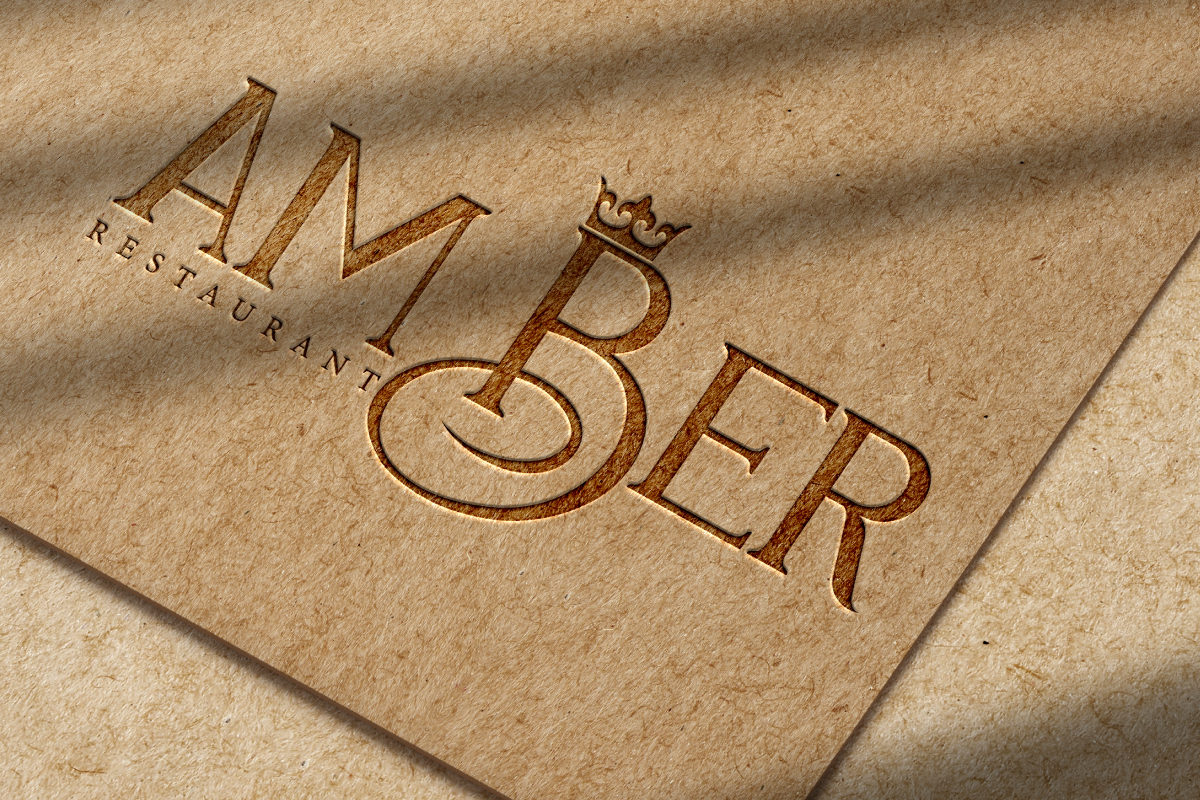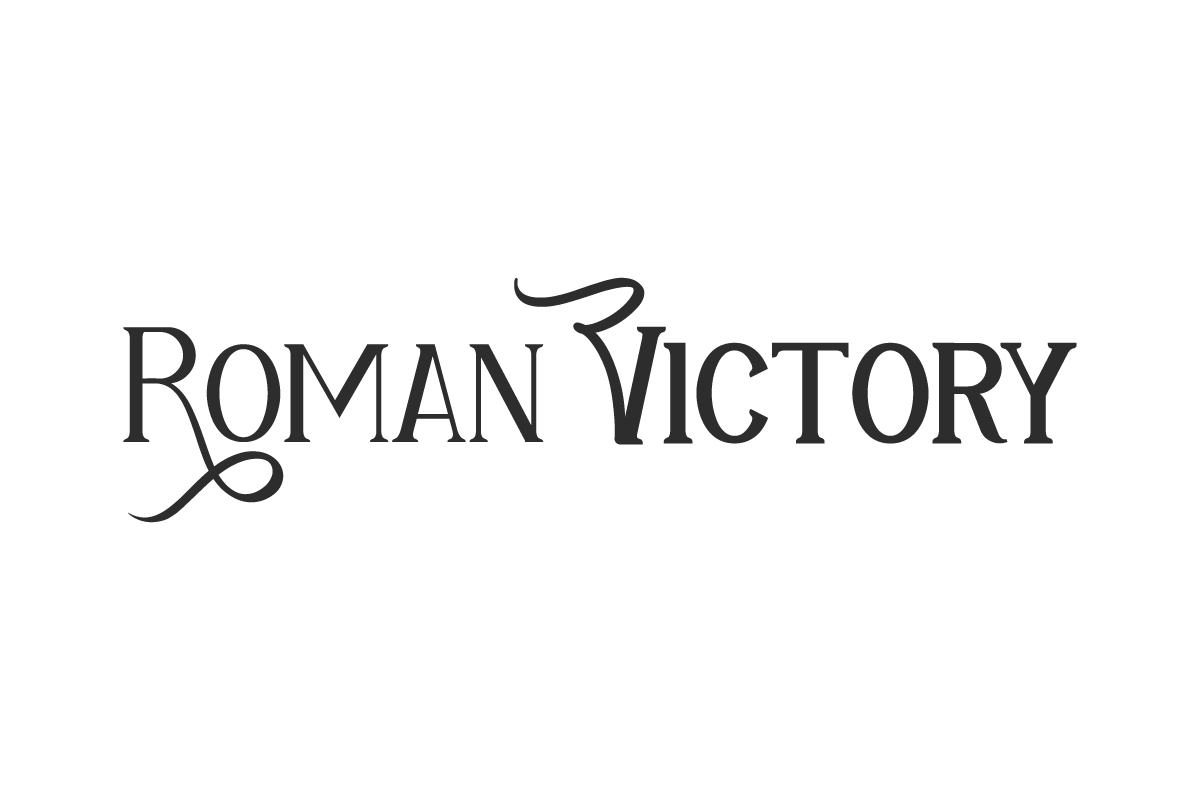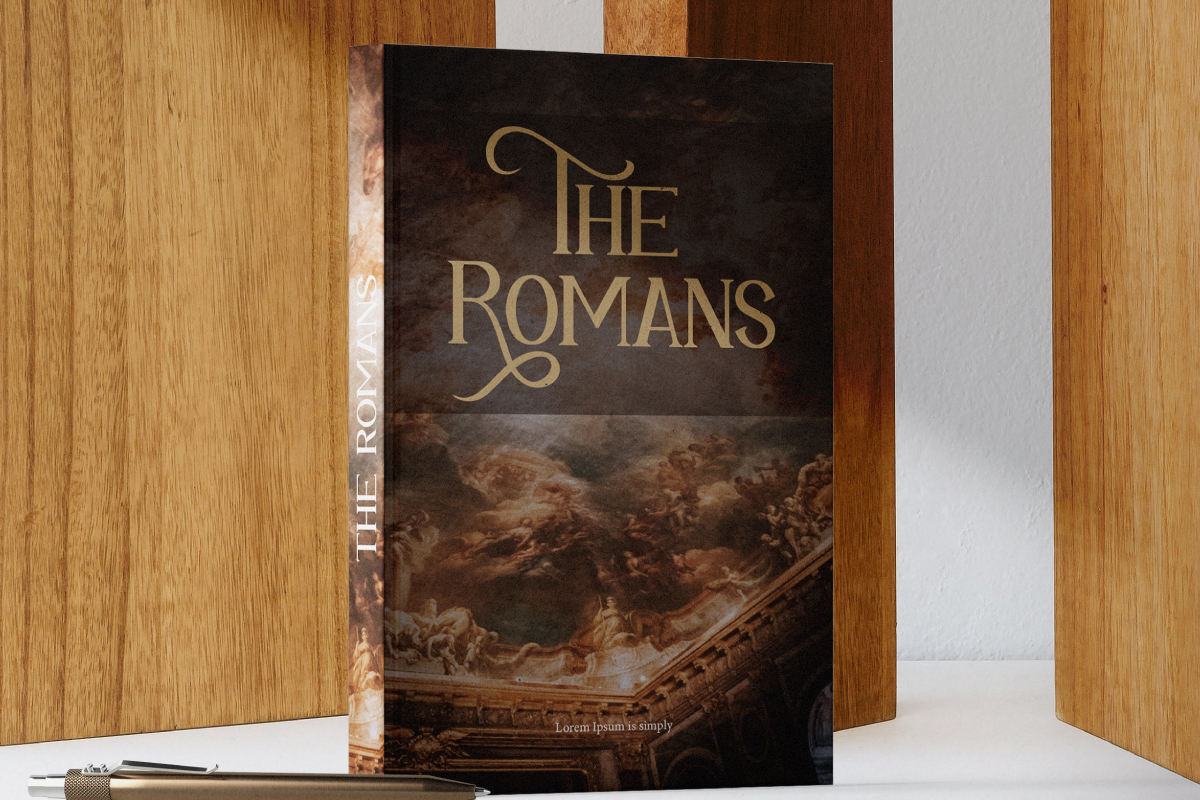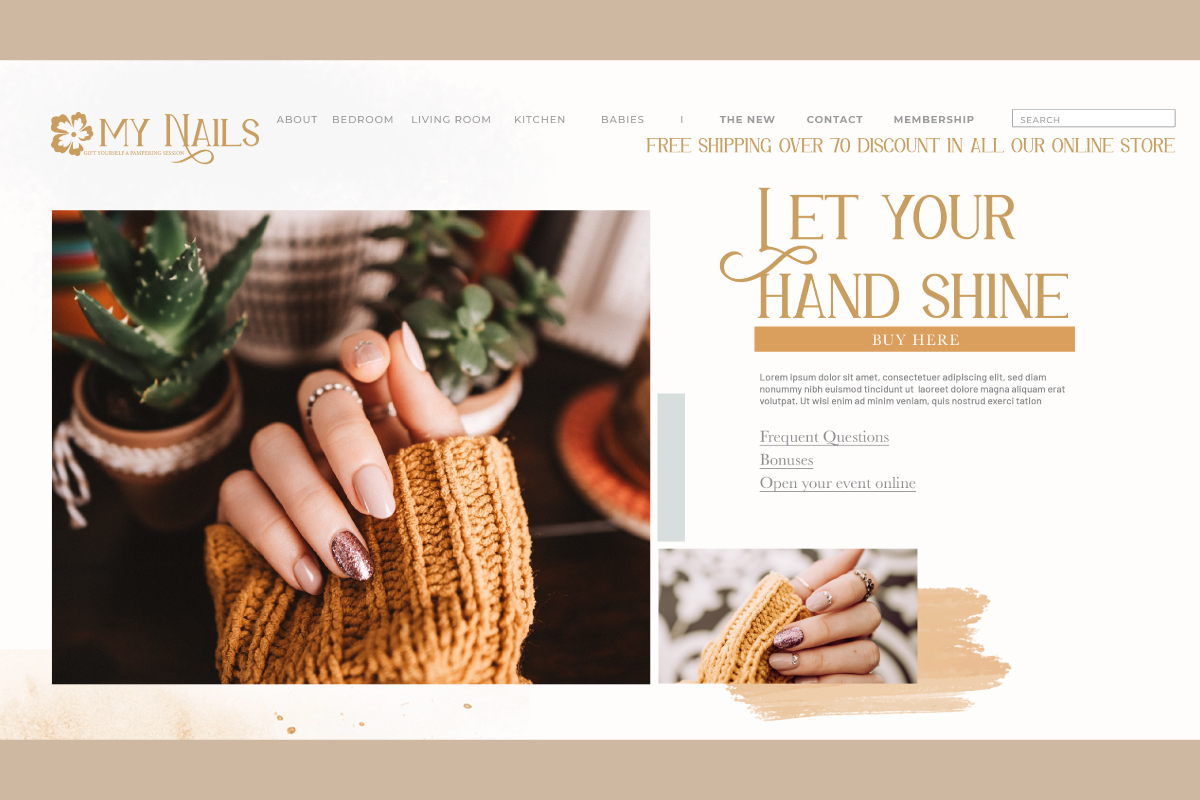
Roman Victory Font
Roman Victory Font is a beautiful and stylish display serif font. This font brings a great classic aesthetic with a special touch. Use this serif font for any design idea like, art gallery, company sign, cosmetic, fashion, florist, label, restaurant, salon, stationary, web page, wedding design, writers and more!